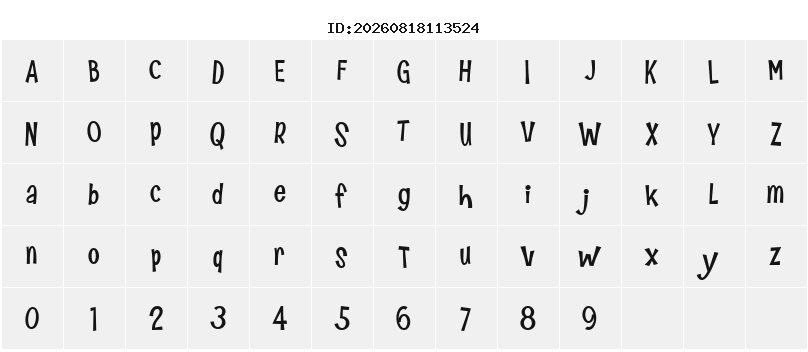
Snoopy Snails NF Preview
• Font Name: Snoopy Snails NF
• Full Font Name: Snoopy Snails NF
About Snoopy Snails NF.ttf
Snoopy Snails NF.ttf is a modern, elegant sans-serif font designed for ultimate readability and visual harmony. Perfect for branding, headlines, web design, and print materials.